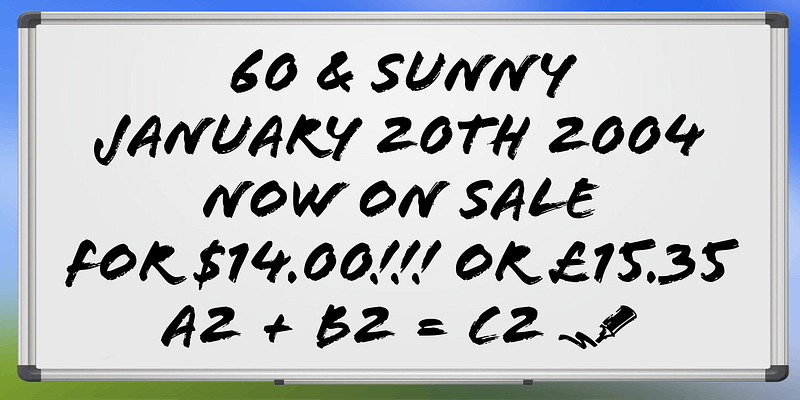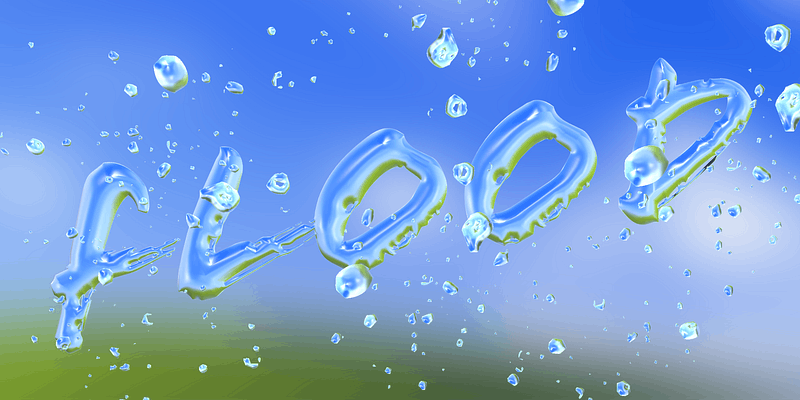
Joachim Müller-Lancé’s Flood is not just another handwritten face. At smaller point sizes it exhibits the natural, dynamic, and spontaneous flow of felt tip marker writing. At larger sizes Flood is immediate, urgent, and provocative in its stylized detailing, without being overly dramatic. Flood’s energetic rhythm is well suited for informal menus, logos, and brief ad copy, in addition to personal correspondence. U.S. Patent Des. 399,248.